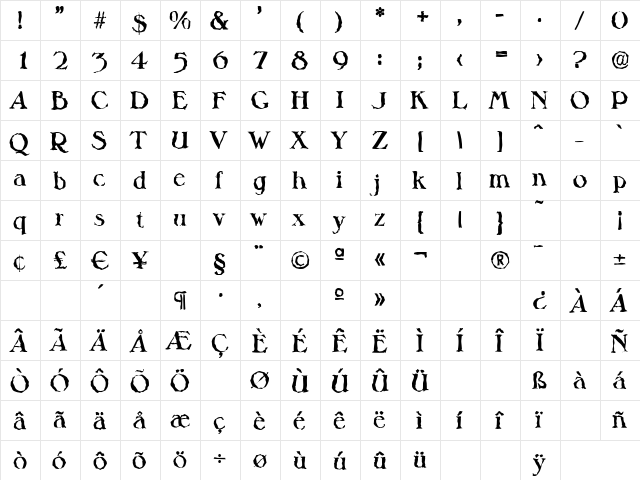
MelbourneRandom Bold
Design Context for MelbourneRandom Typeface
MelbourneRandom is a composed and adaptable typeface that performs quietly and consistently across a wide range of design contexts. The heavy weight commands attention and anchors typographic hierarchies.